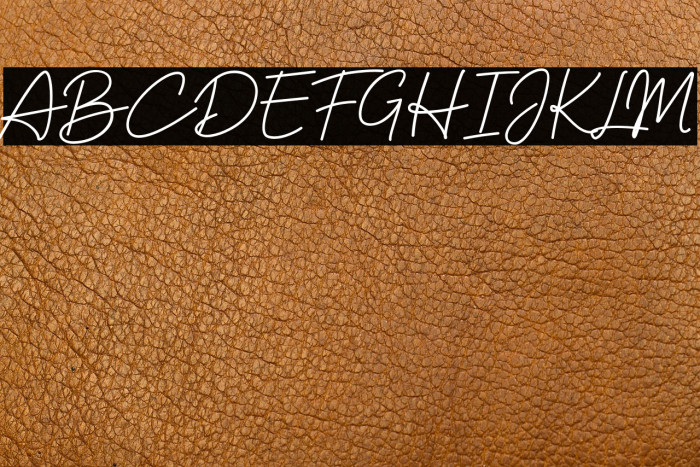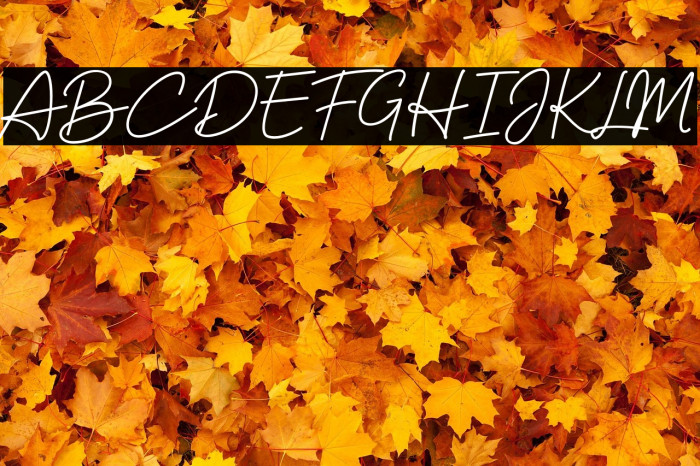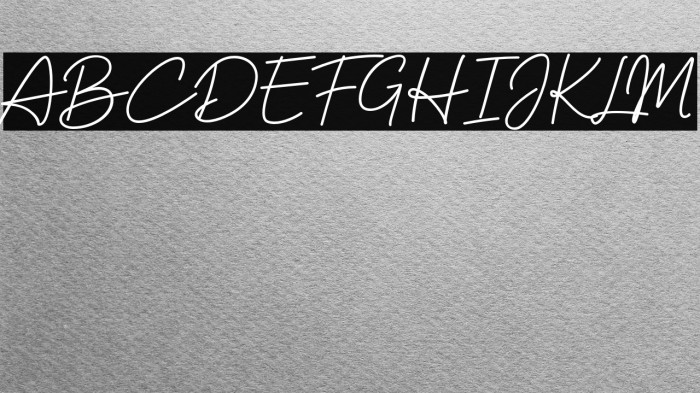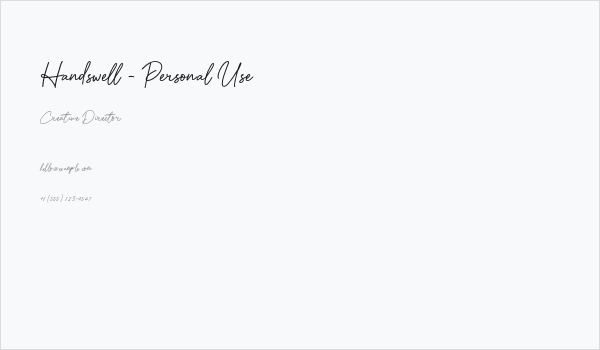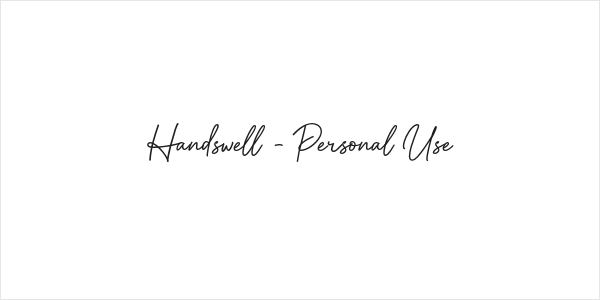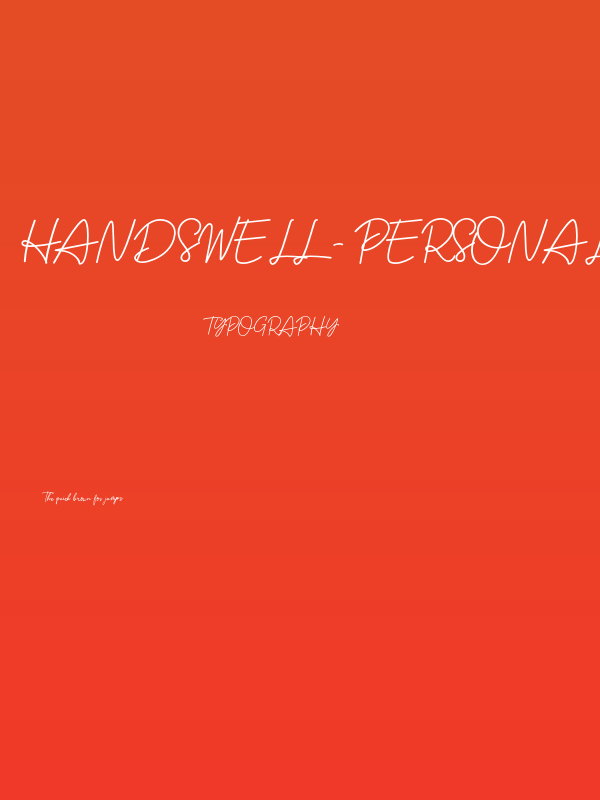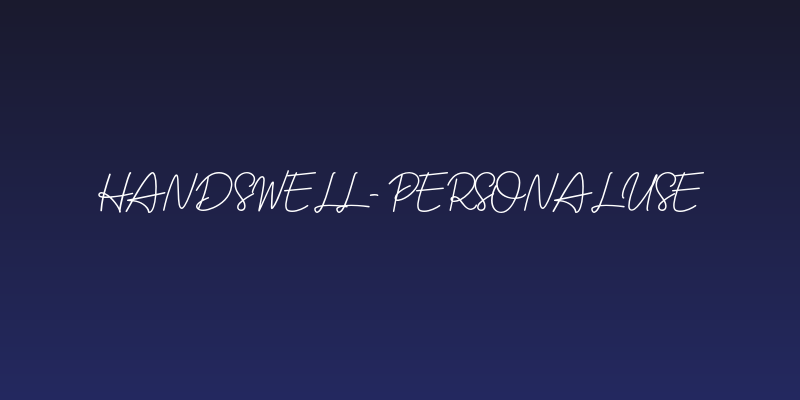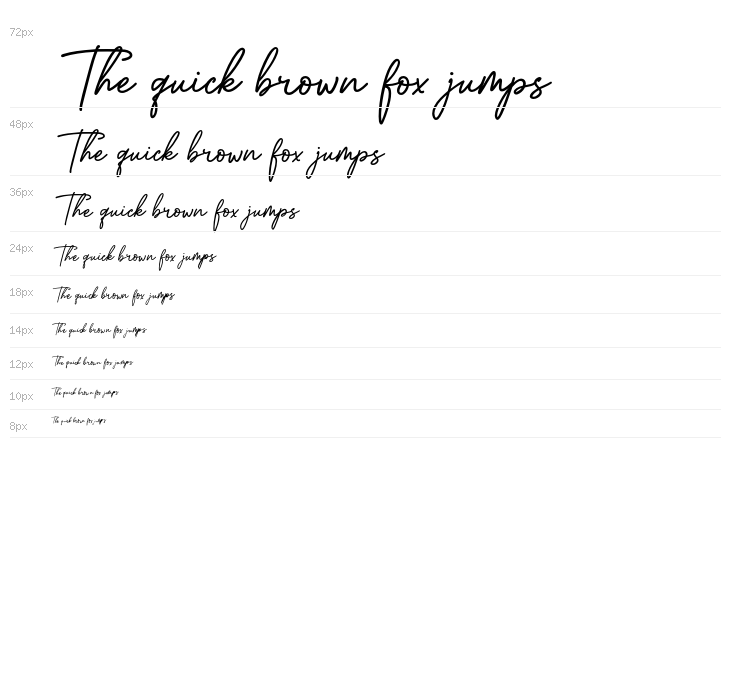
Handswell - Personal Use Font
Handswell - Personal Use Description
This font features a fluid, cursive style that mimics elegant handwriting. The uppercase letters are tall and slender, with a slight slant that adds a dynamic feel. The lowercase letters are more compact, maintaining a consistent flow with smooth curves and loops. Numbers and special characters are designed to complement the overall script style, ensuring a cohesive look. The font's playful yet sophisticated appearance makes it suitable for creative projects that require a personal touch.
| Overall Style | Elegant, Playful |
| Proposed Projects | Ideal for wedding invitations, greeting cards, personal branding, and creative projects that require a personal touch. |